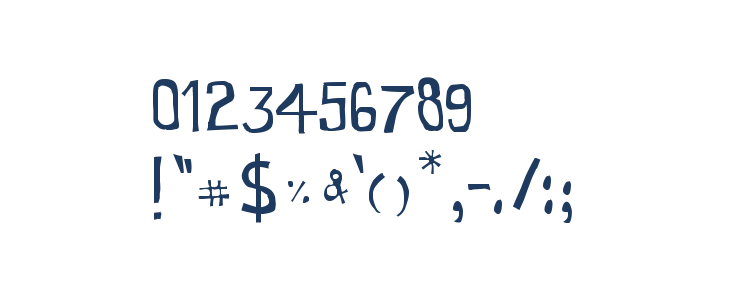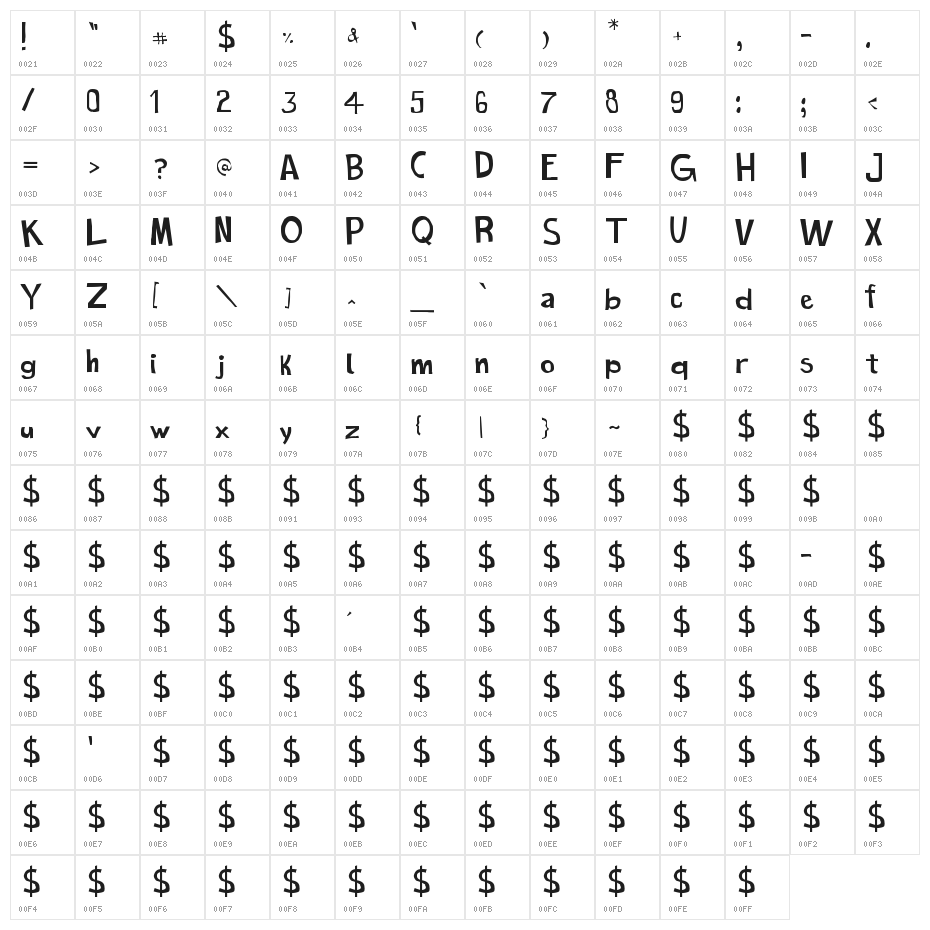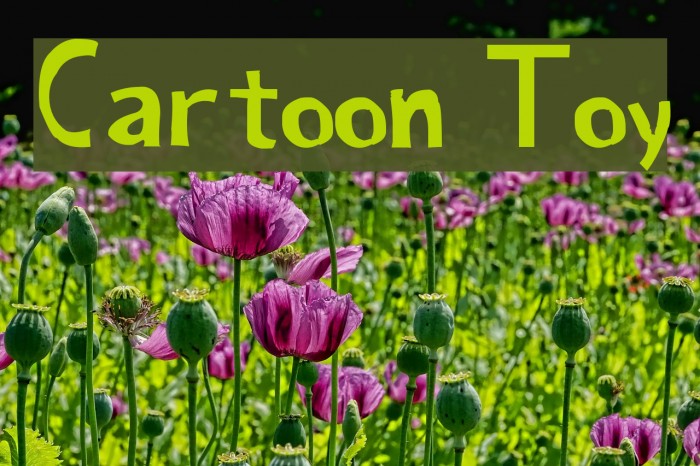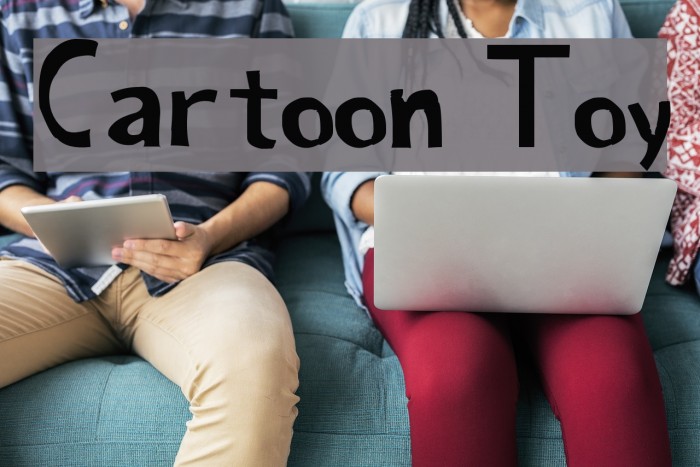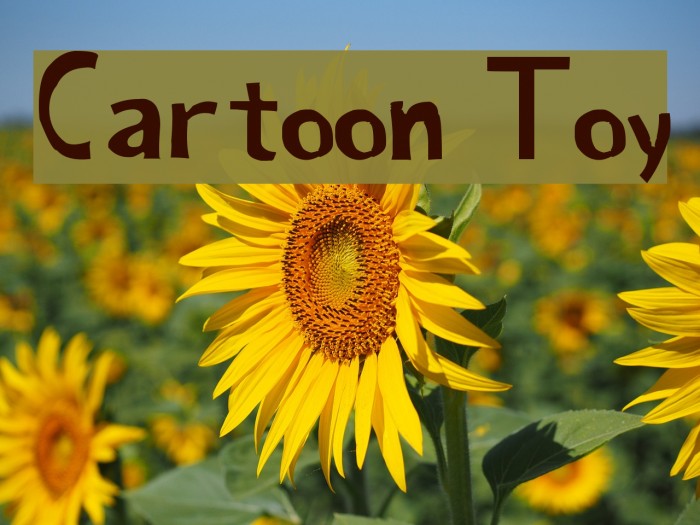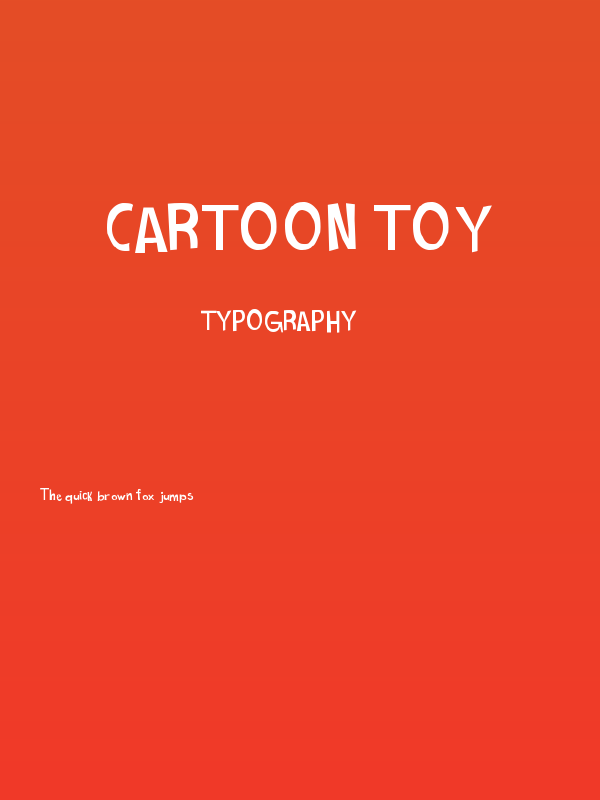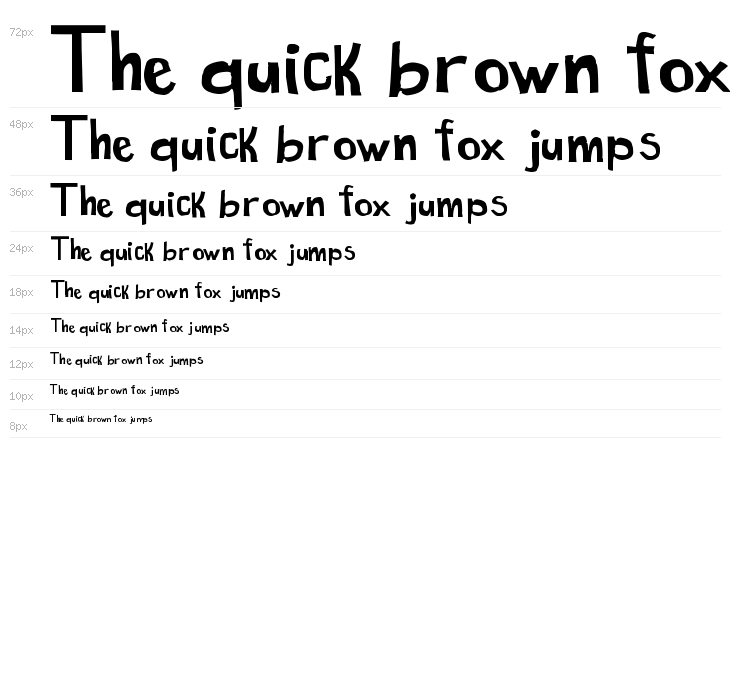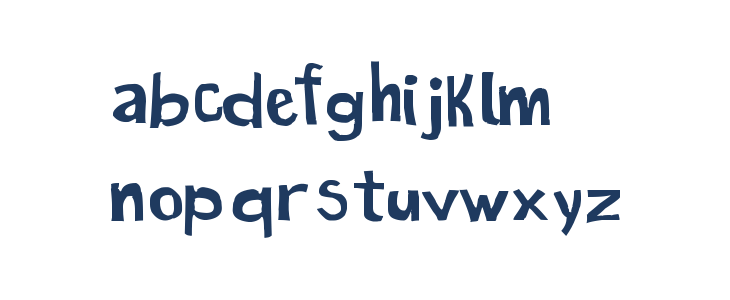
Cartoon Toy Font
Cartoon Toy Description
This playful and whimsical font features irregular, hand-drawn characters that evoke a sense of fun and creativity. The uppercase and lowercase letters have a quirky, uneven baseline, adding to its charm. The numbers and special characters maintain the same playful style, making it versatile for various uses. The strokes are bold and slightly uneven, giving it a casual, friendly appearance. This font is perfect for projects that require a lighthearted and informal touch, such as children's books, comic strips, or playful branding.
| Overall Style | Playful, Whimsical |
| Proposed Projects | Ideal for children's books, comic strips, playful branding, and creative posters. |